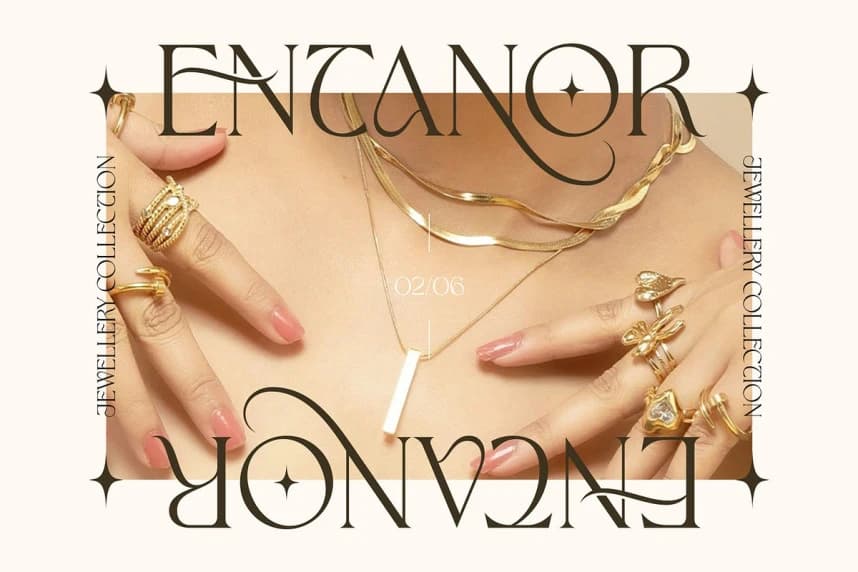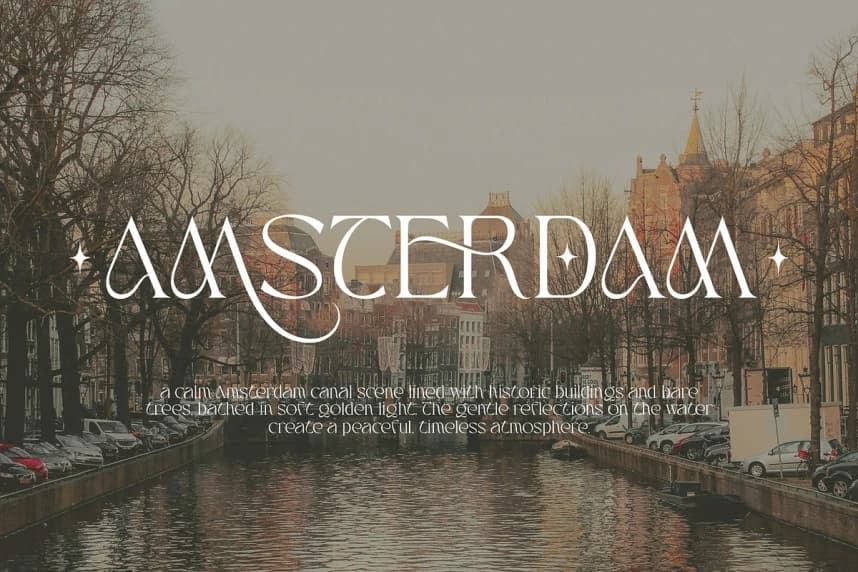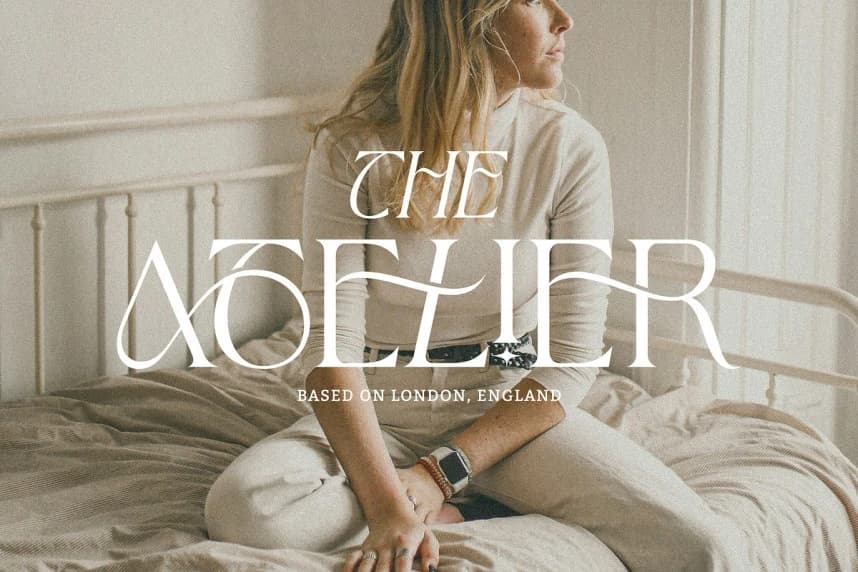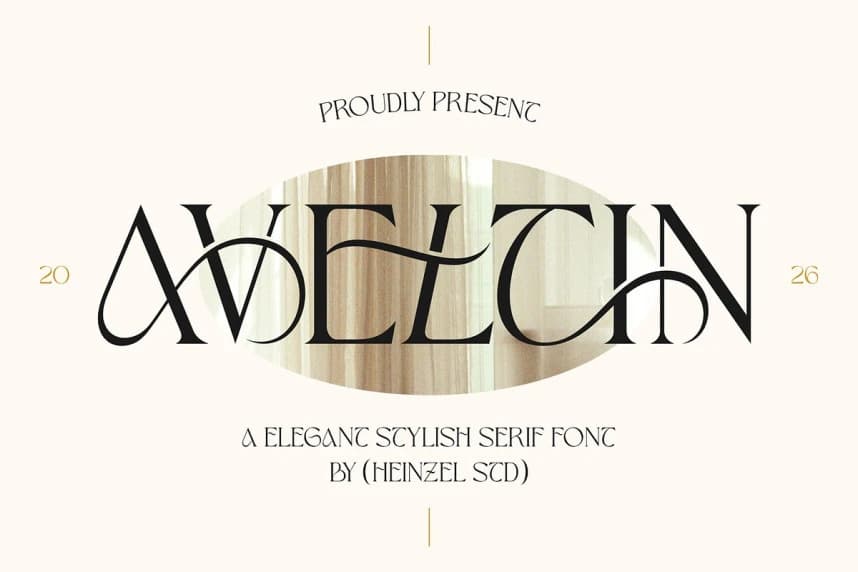
Aveltin Font
Aveltin Font is a refined and elegant serif font that blends timeless elegance with artistic flair. Designed with high contrast strokes and graceful curves, Aveltin stands out through its unique letterforms, making it perfect for luxury branding, editorial layouts, fashion headlines, and sophisticat
Aveltin Font is a refined and elegant serif font that blends timeless elegance with artistic flair. Designed with high contrast strokes and graceful curves, Aveltin stands out through its unique letterforms, making it perfect for luxury branding, editorial layouts, fashion headlines, and sophisticated logo design.